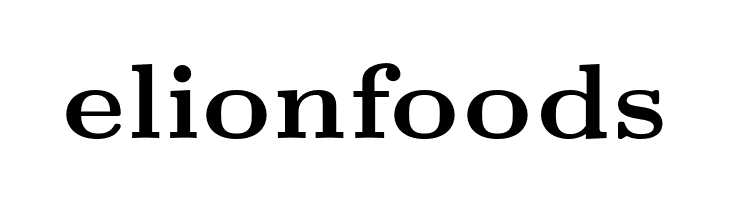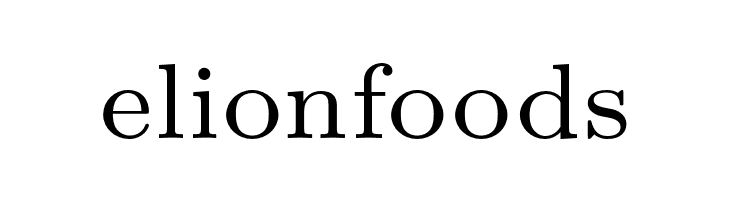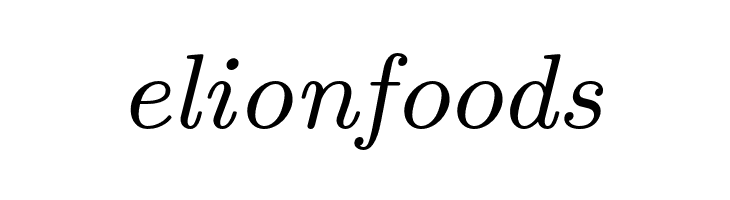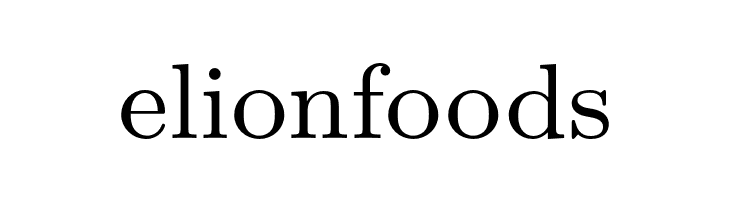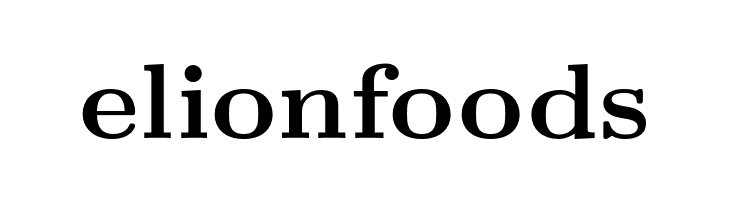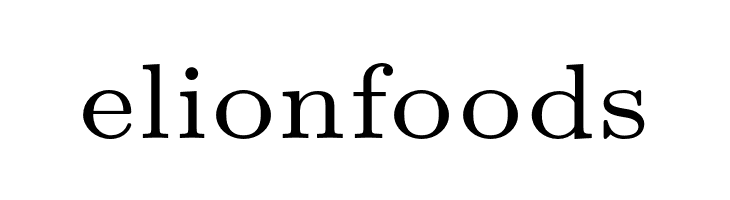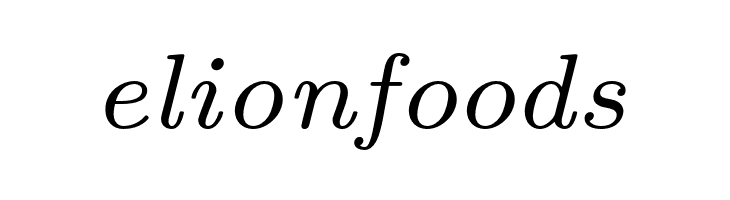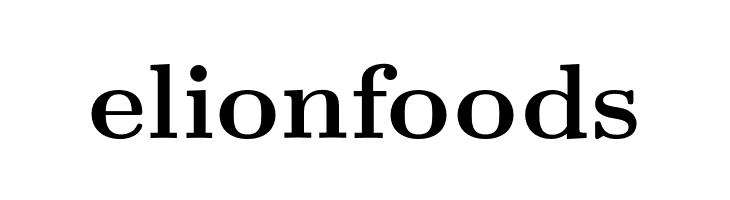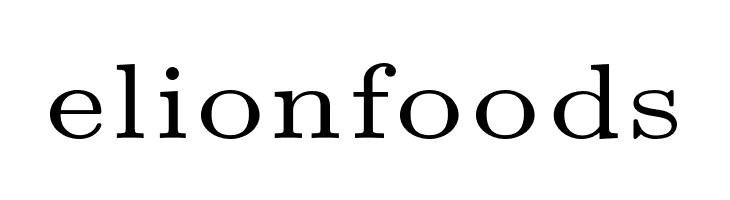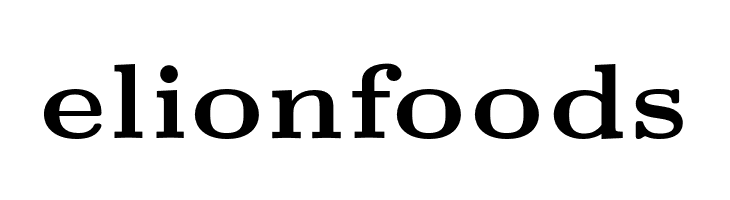
A classic serif font with elegant strokes and refined proportions.
A bold, classic serif font with strong strokes and elegant serifs.
A classic serif font with elegant strokes and refined details.
A bold, classic serif font with strong strokes and elegant serifs.
An elegant serif italic font with smooth lines and moderate contrast.
A classic serif font with elegant strokes and well-proportioned characters.
A bold, classic serif font with high contrast and pronounced serifs.
An elegant and classic serif italic font with smooth, flowing letterforms.
A classic serif font with elegant strokes and refined proportions.
A bold, classic serif font with high contrast and strong readability.